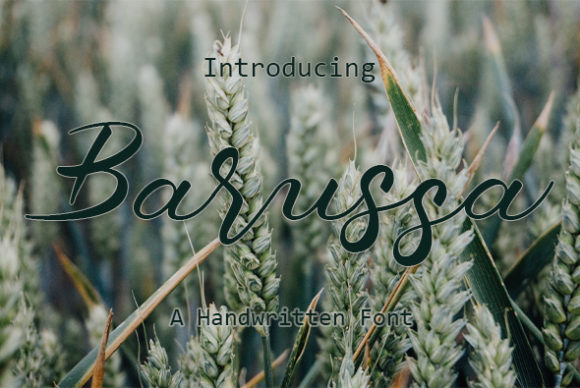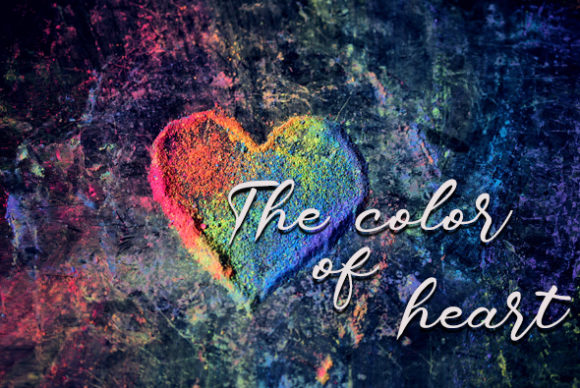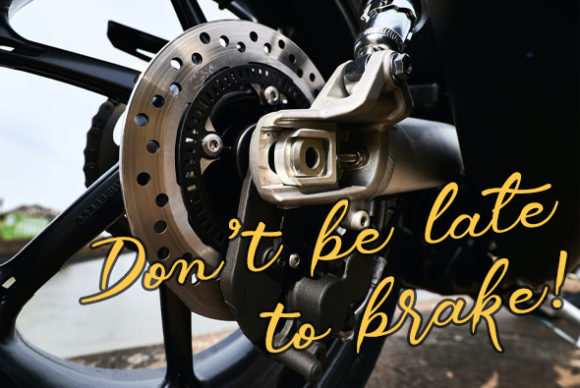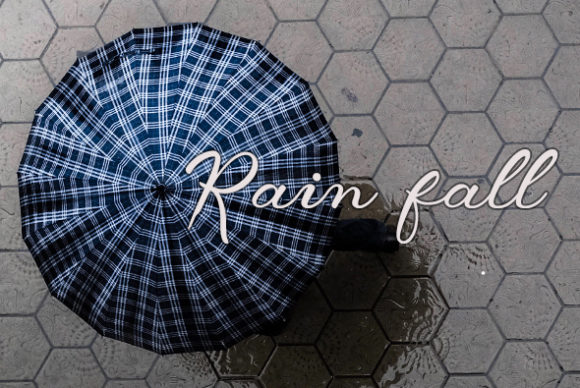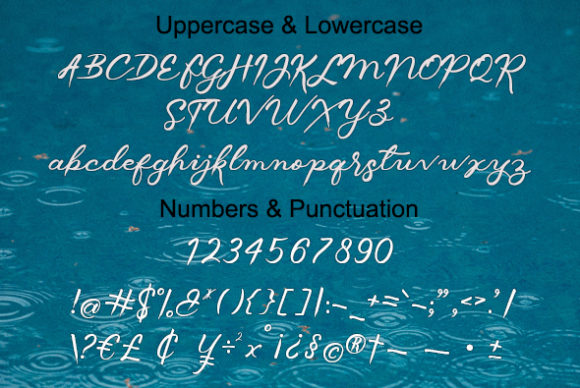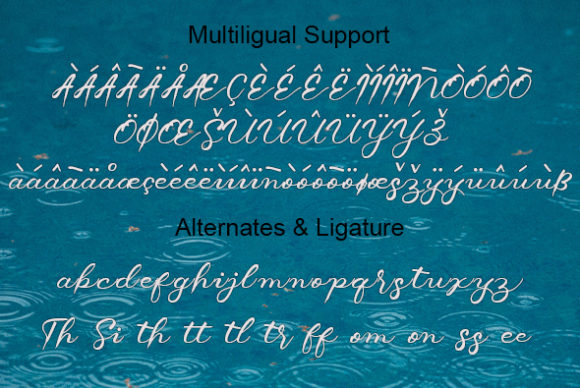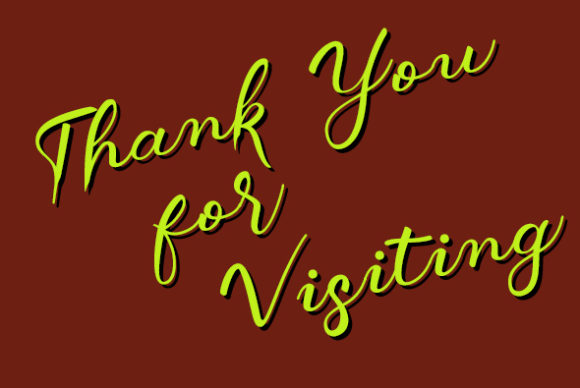
Barussa Font
About Barussa Font
Barussa is a unique and interesting handwritten font. Incredibly versatile, this font will fit a wide pool of designs.
Fall in love with its incredibly stylish look and use it to create spectacular designs!